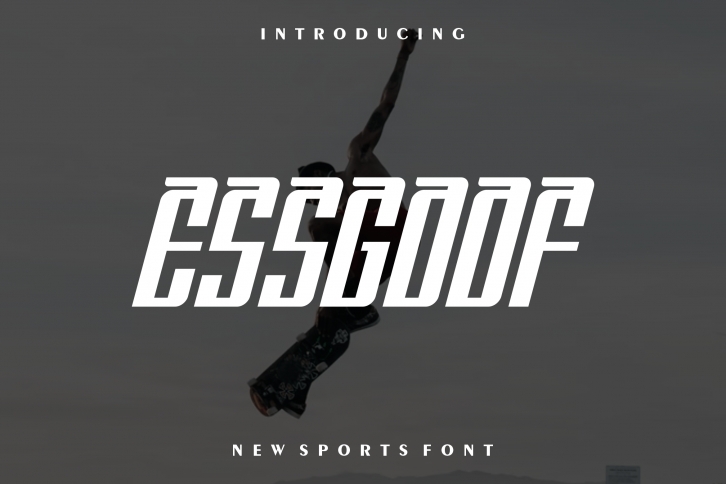
Introducing our new product the name is **Essgoof font**. Modern Serif font that feels beautiful classy, elegant, and modern. This font is perfectly suited for a wide variety of projects, such as signature, stationery, logo, wedding, typography quotes, magazine or book cover, website header, clothing, branding, packaging design, and more. Also, fashion-related branding or editorial design displays both masculine and feminine qualities.
**Features**:
* Uppercase